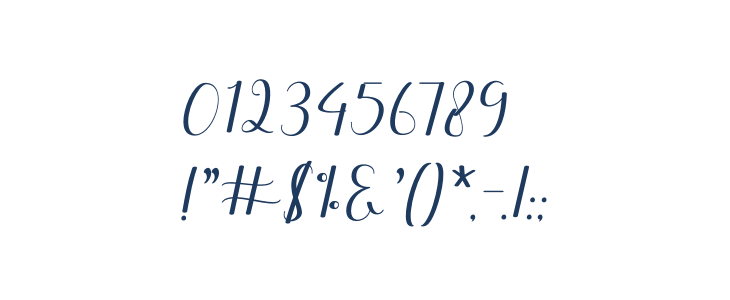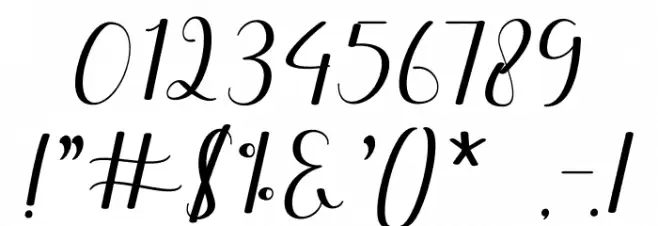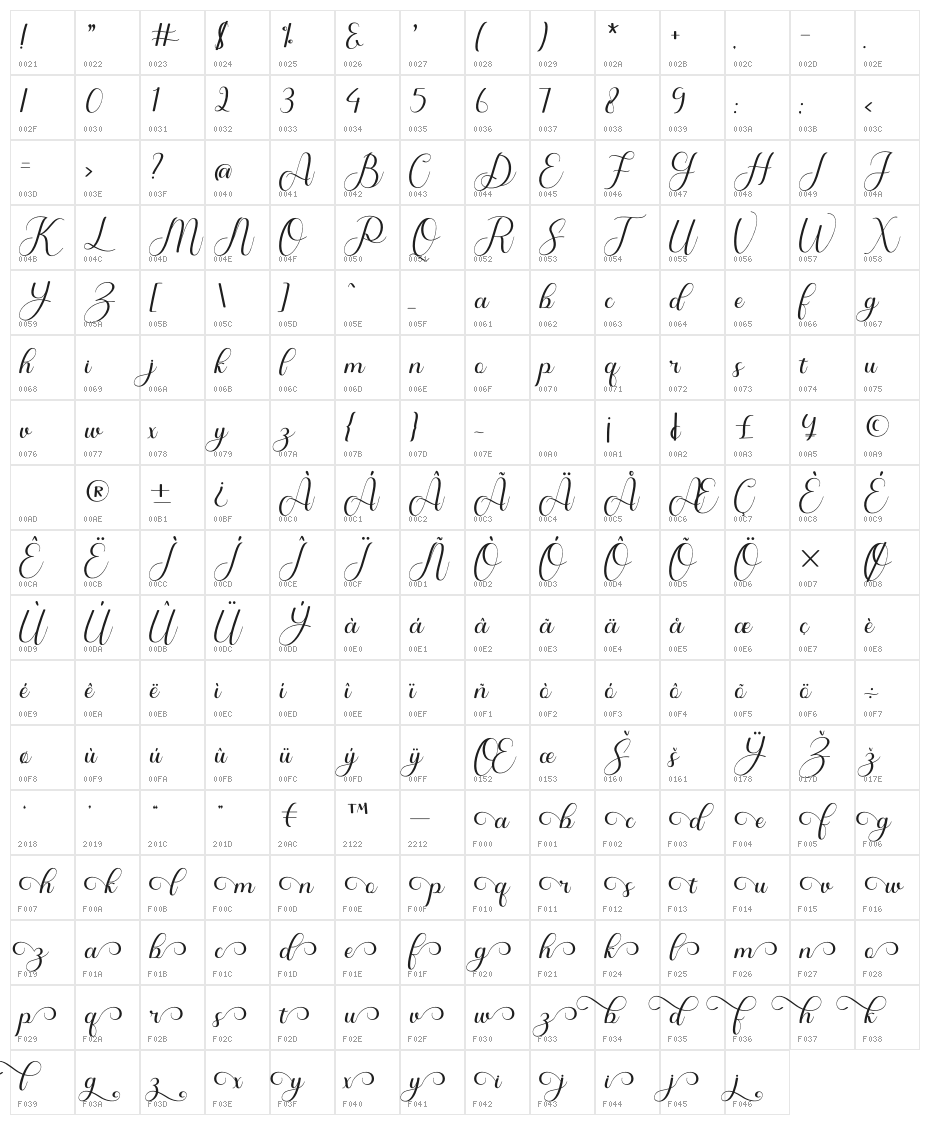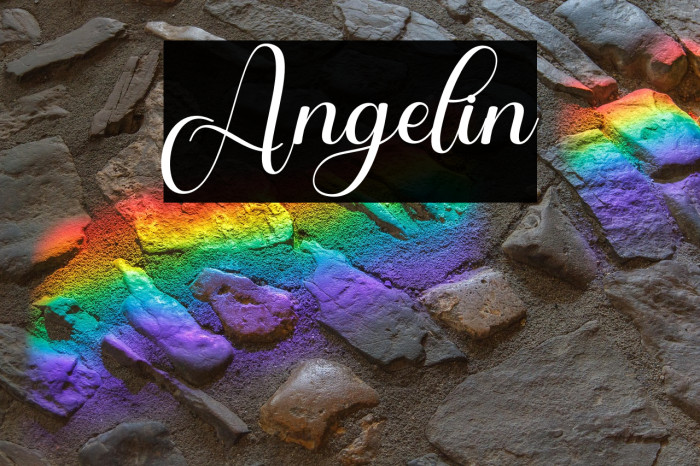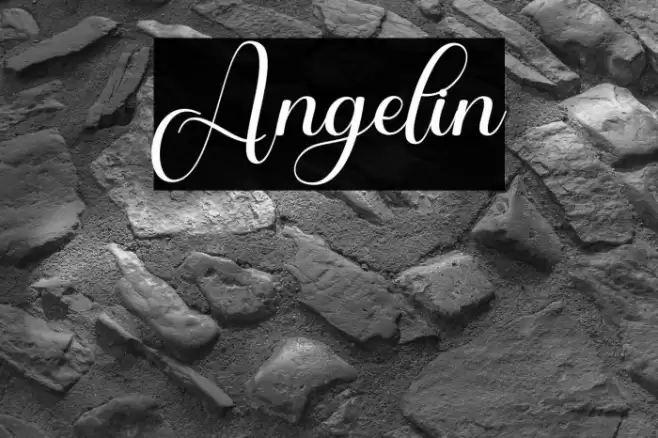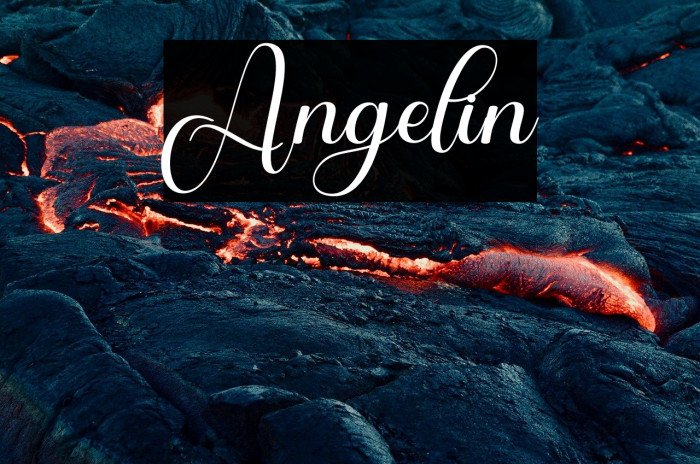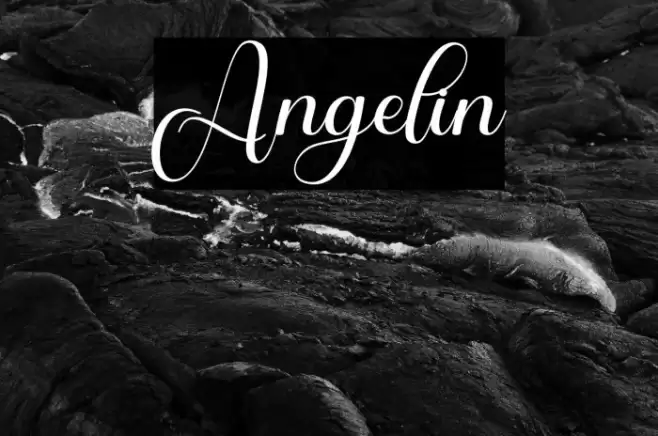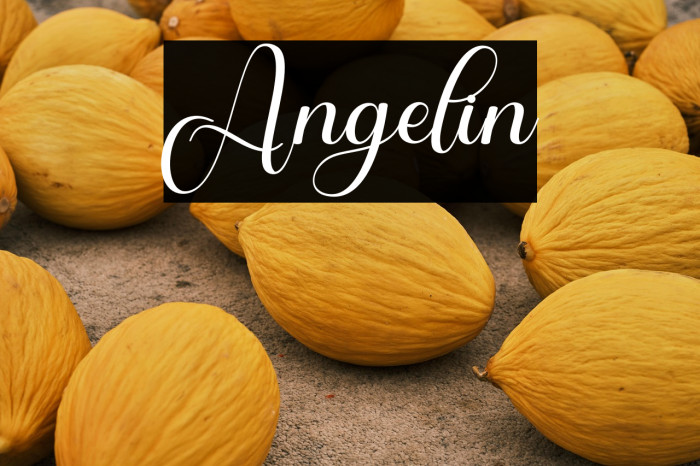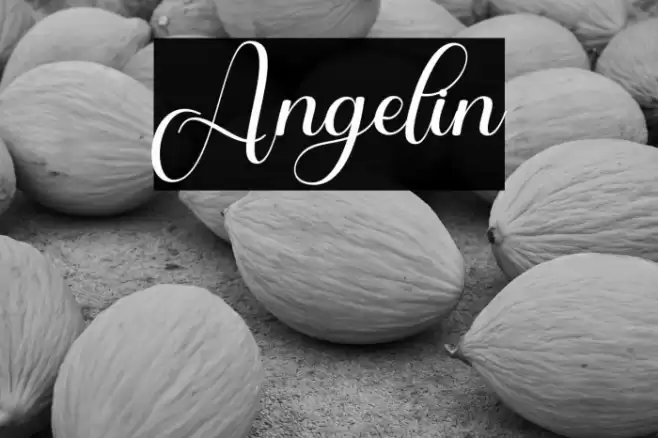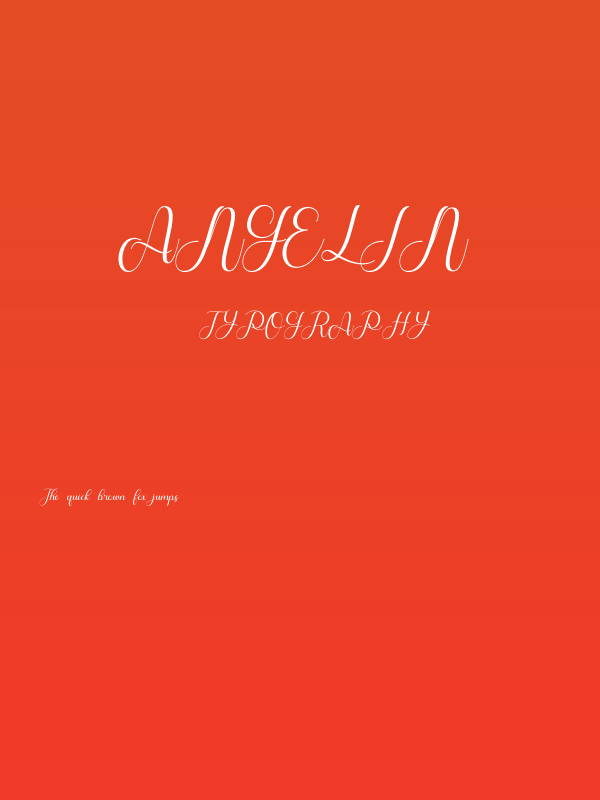
Angelin Font
Angelin Description
This elegant script font features flowing, cursive letterforms with a graceful and sophisticated appearance. The uppercase letters are tall and slender, with sweeping loops and flourishes that add a touch of refinement. The lowercase letters maintain a consistent style, with smooth connections and a fluid motion that enhances readability. The numerals are stylish and complement the overall aesthetic, while the special characters are designed with the same attention to detail, making them suitable for decorative purposes. This font exudes a sense of elegance and charm, perfect for projects that require a touch of class.
| Proposed Projects | Ideal for wedding invitations, elegant branding, luxury packaging, and formal event materials. |